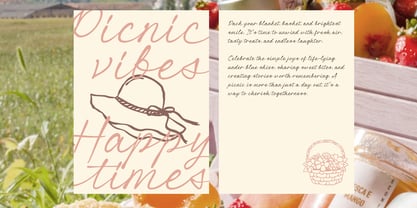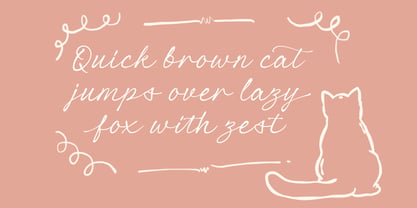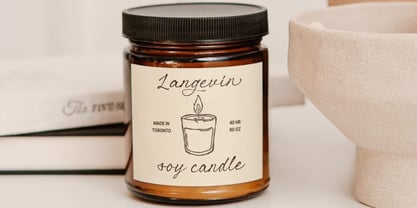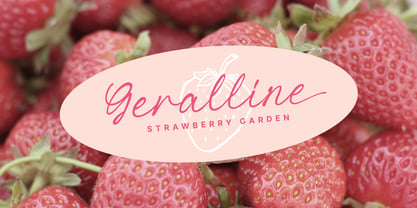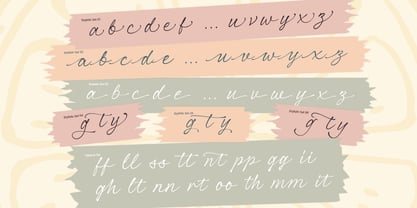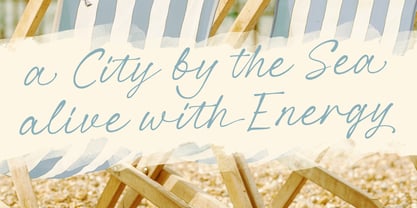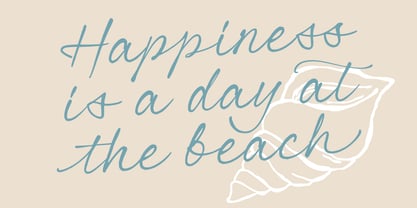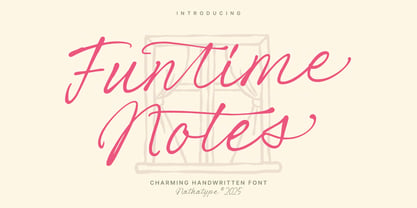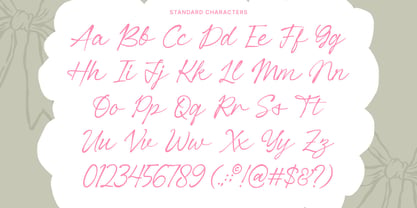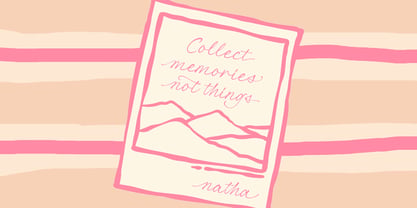
Funtime Notes
by Nathatype
The Funtime Notes Font Family was designed by Donis Miftahudin and published by Nathatype. Funtime Notes contains 1 styles. More about this family
Funtime Notes is a bold handwritten font designed in a flowing cursive style. Its lively strokes and strong contrast give each letter a clear, confident presence, making it easy to read while retaining a personal, handwritten charm. Funtime Notes brings a casual yet eye-catching feel to any project. With its smooth curves and bold weight, this font captures the warmth of handwriting while ensuring visibility and impact. In addition, enjoy the features here.
Features:
• Stylistic Sets
• Ligatures
• Multilingual Supports
• Numerals and Punctuations
Designers: Donis Miftahudin
Current Foundry: Nathatype